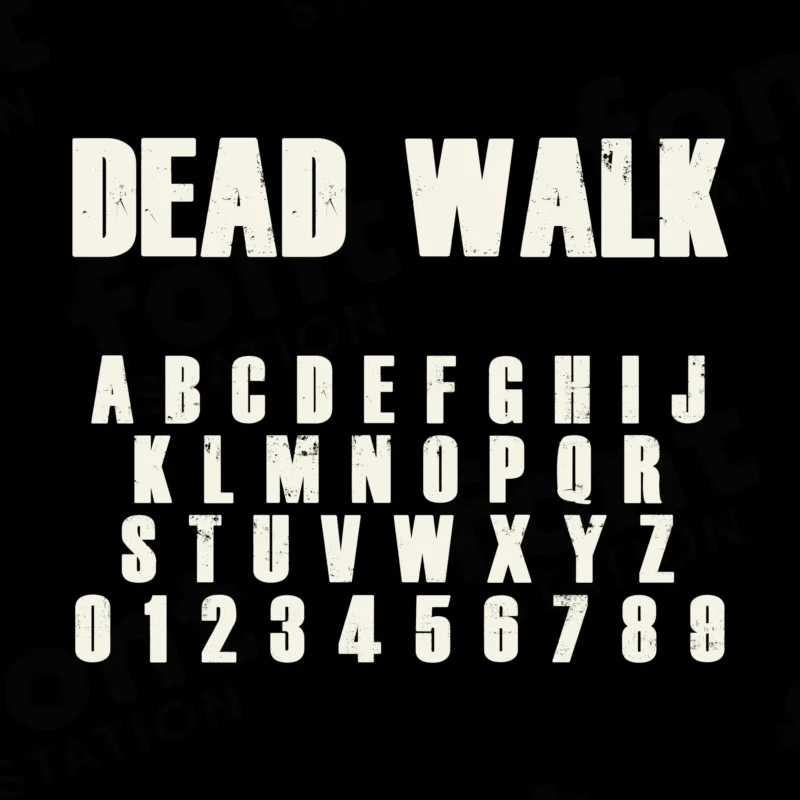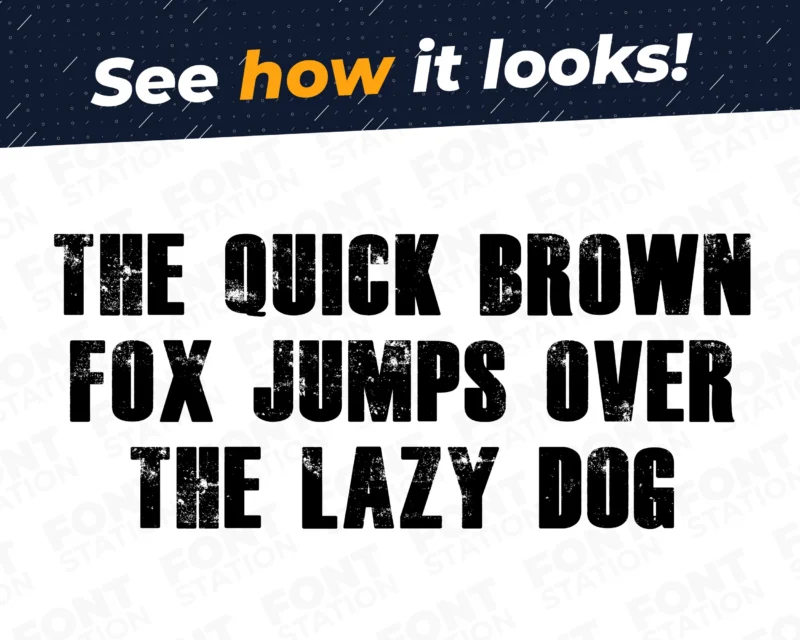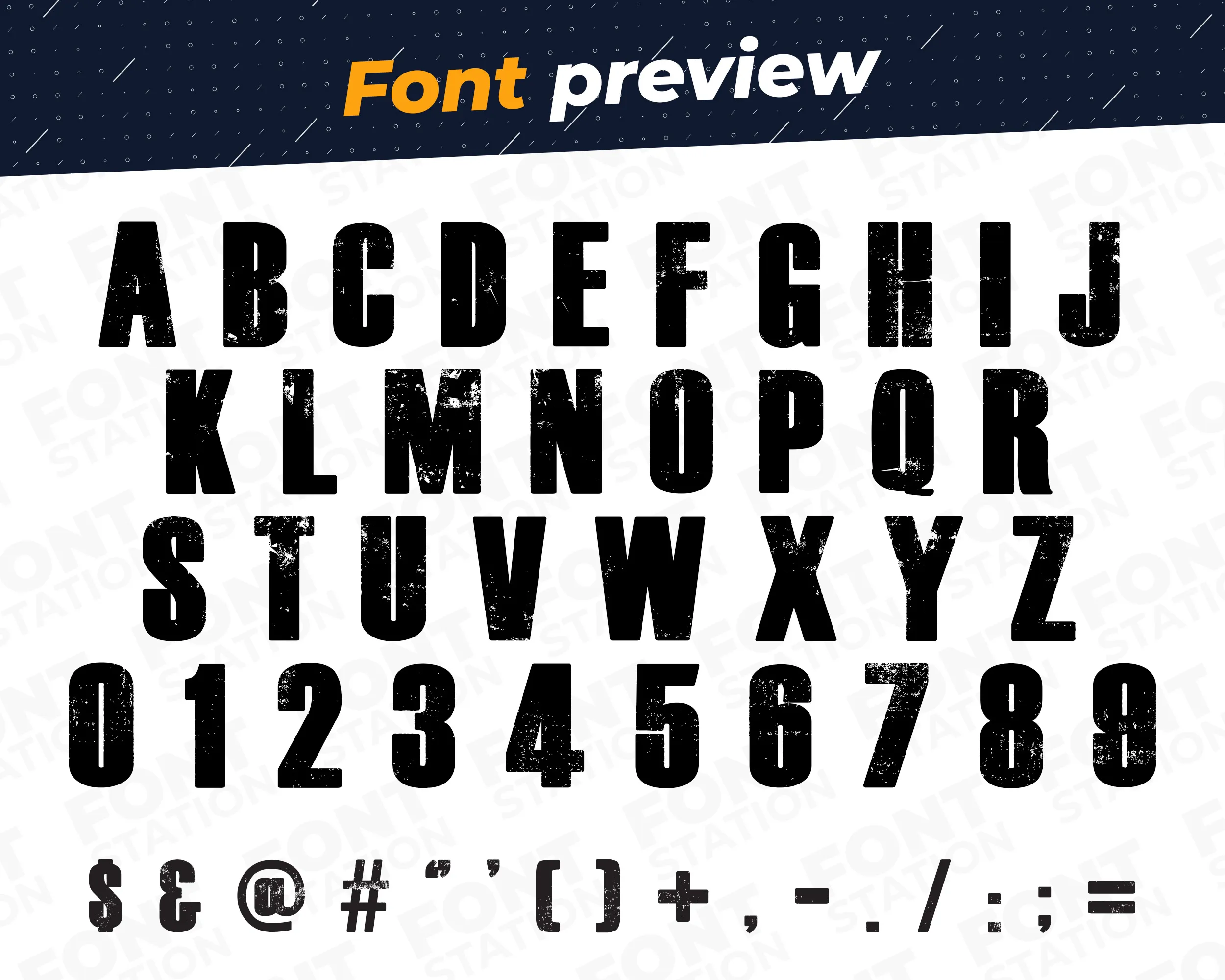
Our Zombie Apocalypse typeface, inspired from The Walking Dead font
Grab your computer, tablet or other device and start creating right now with our The Walking Dead font letters! Our Zombie Apocalypse typography is inspired from The Walking Dead TV series font, making it ideal for various digital creations (logo, word…), sublimation, cake toppers, stickers, event decorations, and more.